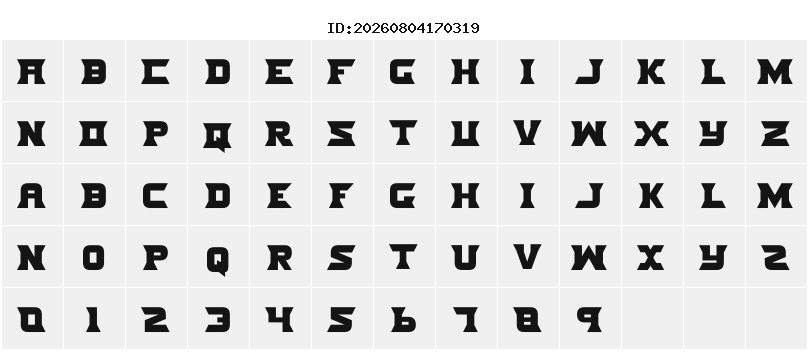
• Font Name: Nife Fiter
• Font ID: Nife Fiter
• Full Font Name: Nife Fiter
• PostScript Name: NifeFiter
About Nife Fiter.ttf
Nife Fiter.ttf is a modern, elegant sans-serif font designed for ultimate readability and visual harmony. Perfect for branding, headlines, web design, and print materials.